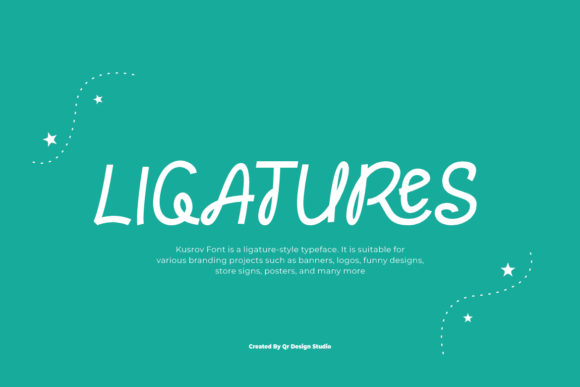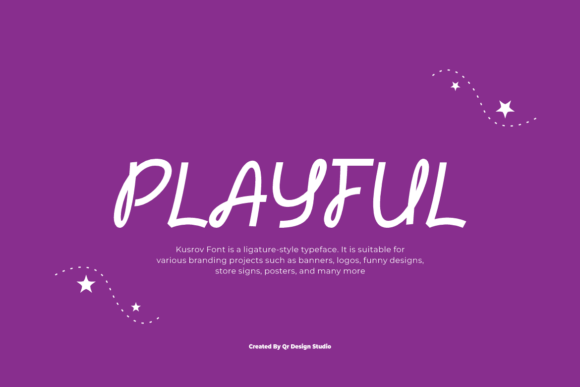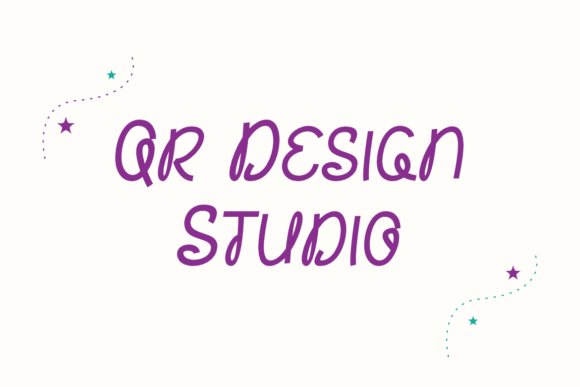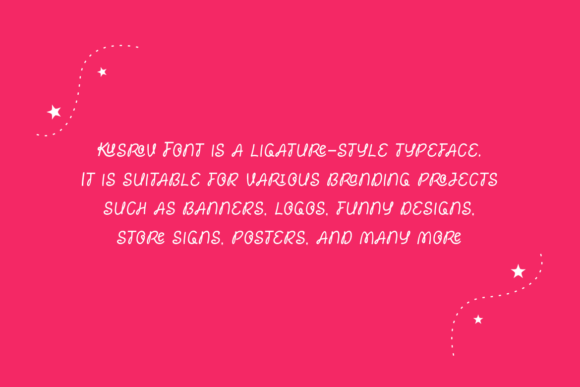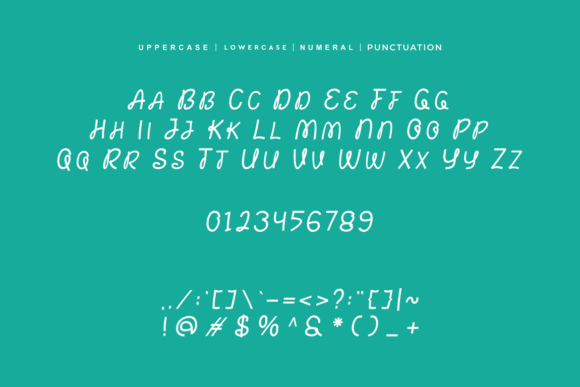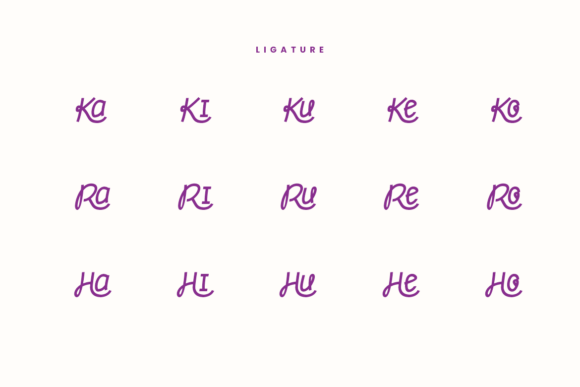
Introduction to Kusrov Font
Have you ever been working on a creative project, pouring your heart and soul into it, only to feel like something is missing? That’s when the perfect design resource can make all the difference. For designers, finding the right font can be the key to taking a project from bland to grand.
Enter the Kusrov Font, a casual handwritten font that’s sure to add a touch of personality to any design. With its free download and transparent background, this high-quality font is the perfect addition to any creative project.
Key Features of Kusrov Font
- High-quality font design, ideal for creative projects and designs that require a unique touch.
- Designed with a focus on legibility and readability, making it suitable for a variety of design applications, including digital and print media.
Honest Review: Kusrov Font
As a designer, I’m always on the lookout for high-quality fonts to enhance my creative projects. Recently, I stumbled upon the Kusrov Font, which I’ll be reviewing in this article.
- ✨ The font’s elegant and modern design makes it perfect for various creative projects, from branding to digital art.
- ⚠️ The font may not be suitable for body text due to its ornate design, which can be difficult to read in large quantities.
- ⚠️ The font is only available in a few weights, which may limit its versatility in certain designs.
Overall, I’m impressed with the Kusrov Font’s design and functionality. While it may have some limitations, it’s a great resource for designers working on creative projects that require a high-quality, modern font.
Tips for Getting the Most Out of Kusrov Font
Use the Kusrov Font in combination with other design elements to create a cohesive and visually appealing design. Experiment with different font sizes, colors, and styles to find the perfect look for your creative project.
The Kusrov Font is ideal for designing logos, branding materials, and marketing materials. You can also use it to create custom graphics, icons, and typography for your creative project.
Creative Projects with Kusrov Font
Project 1: Minimalist Social Media Post
Use the Kusrov Font for a modern and elegant social media post design. The font’s clean lines and high-quality design make it perfect for creating a simple yet eye-catching post.